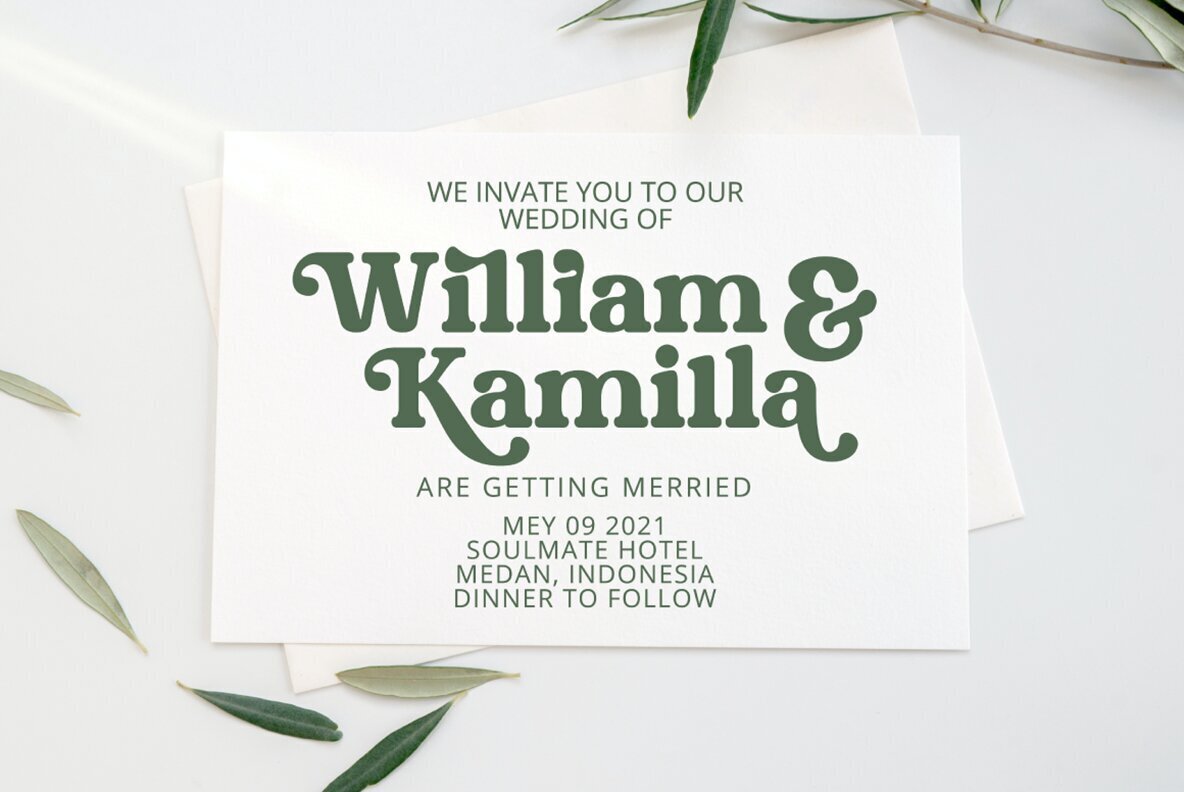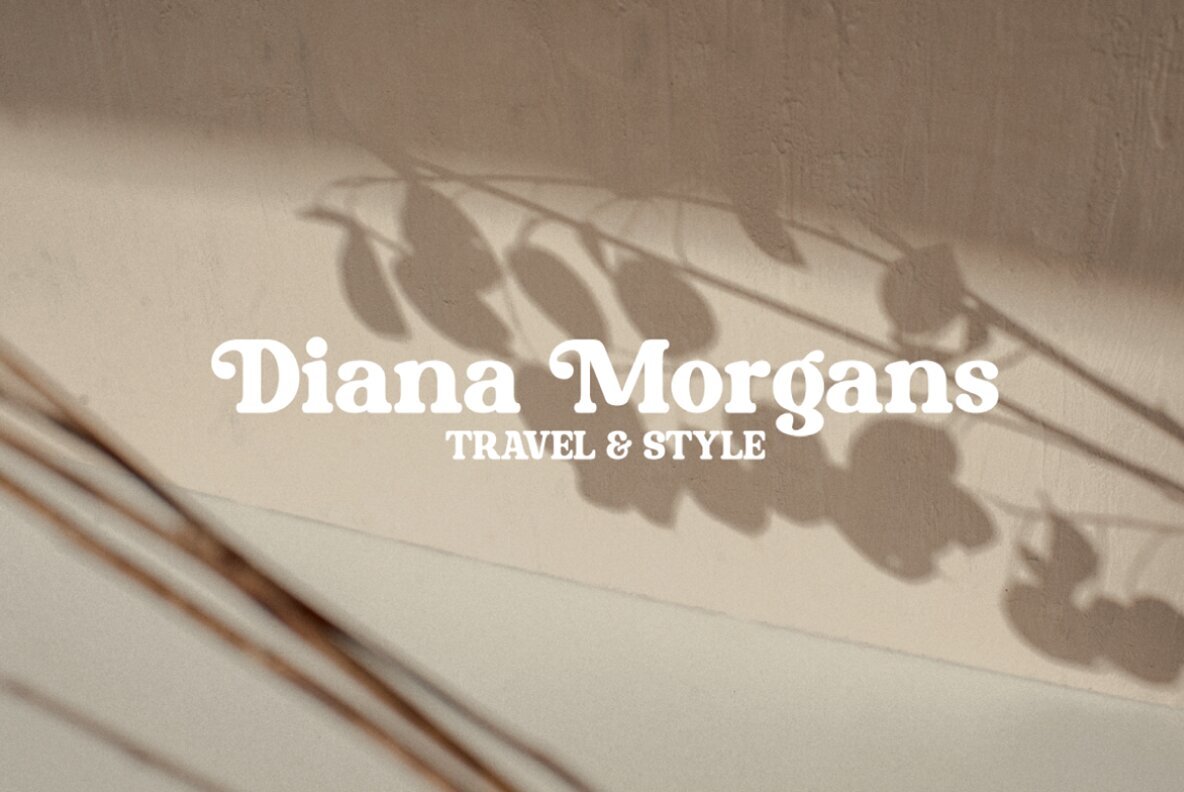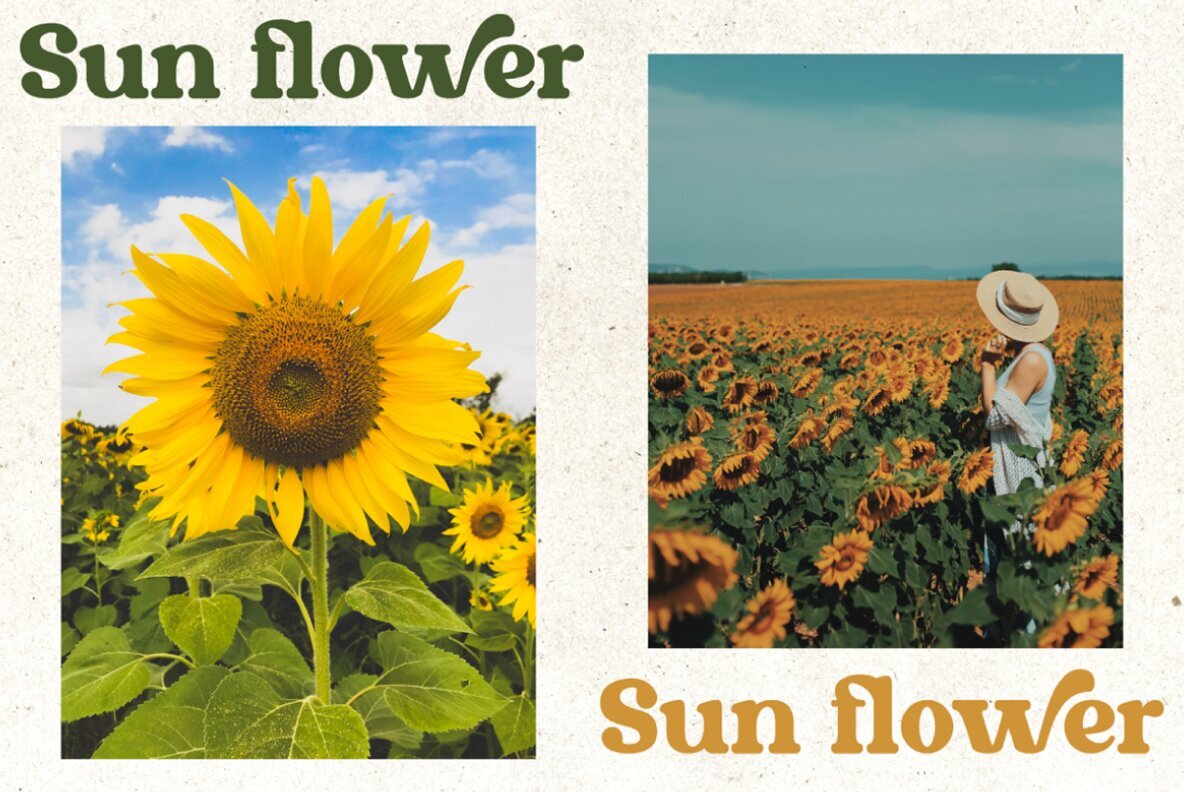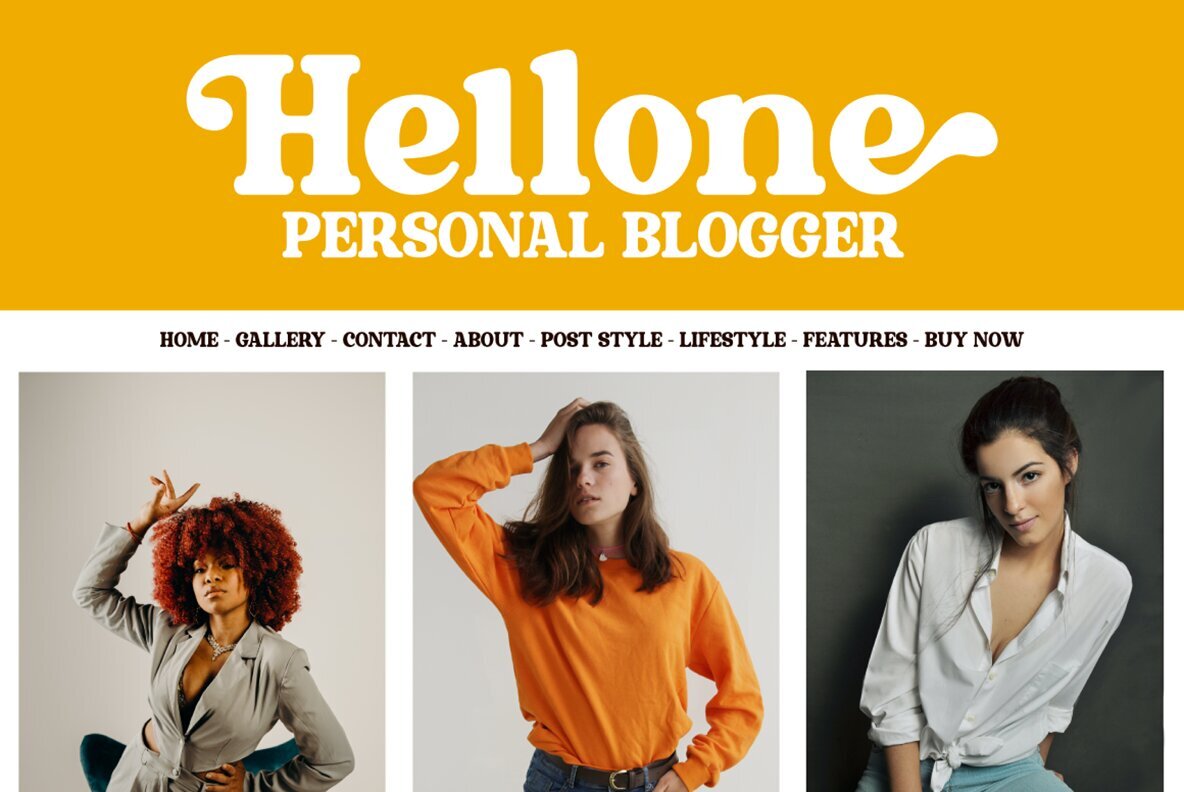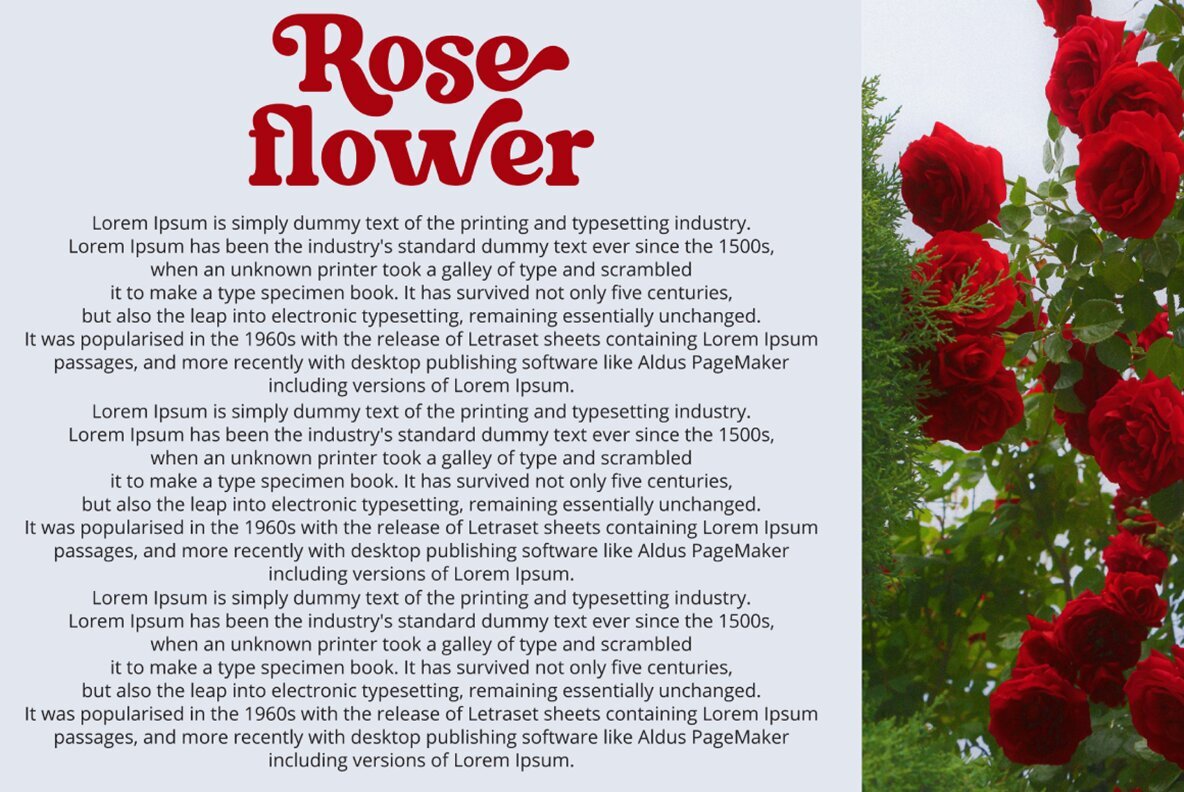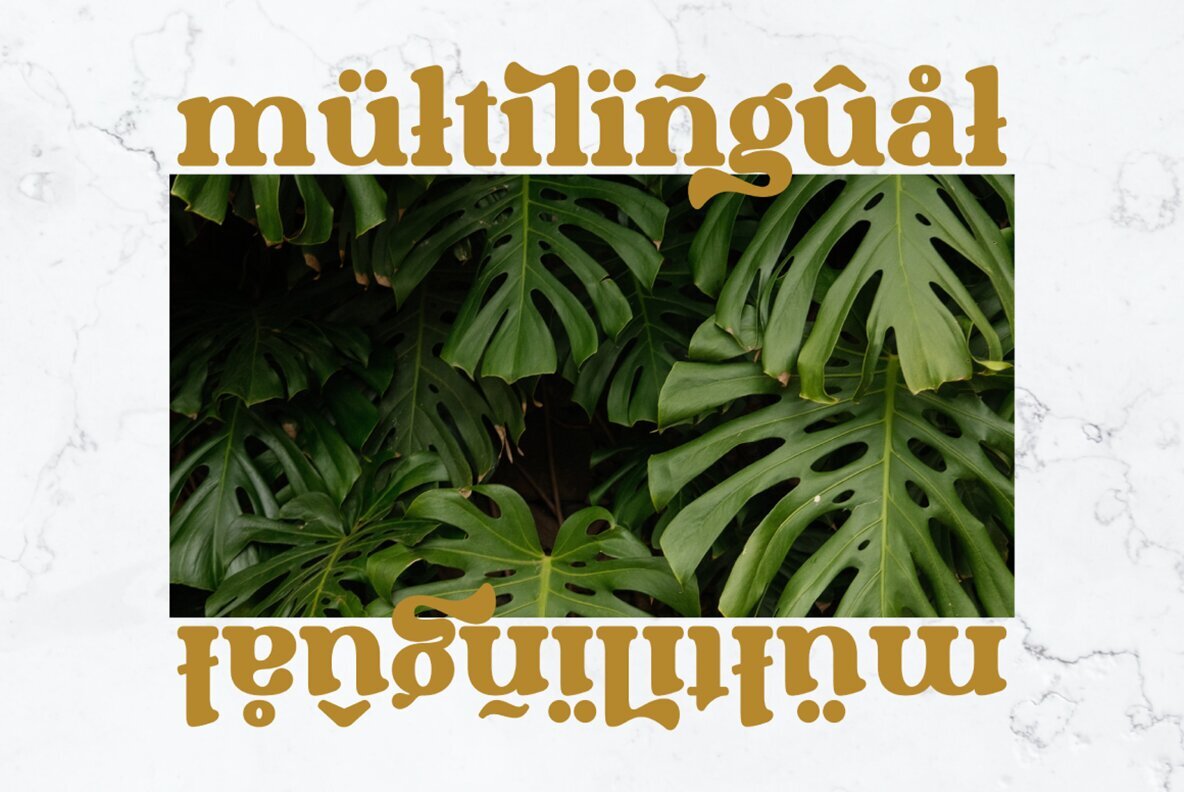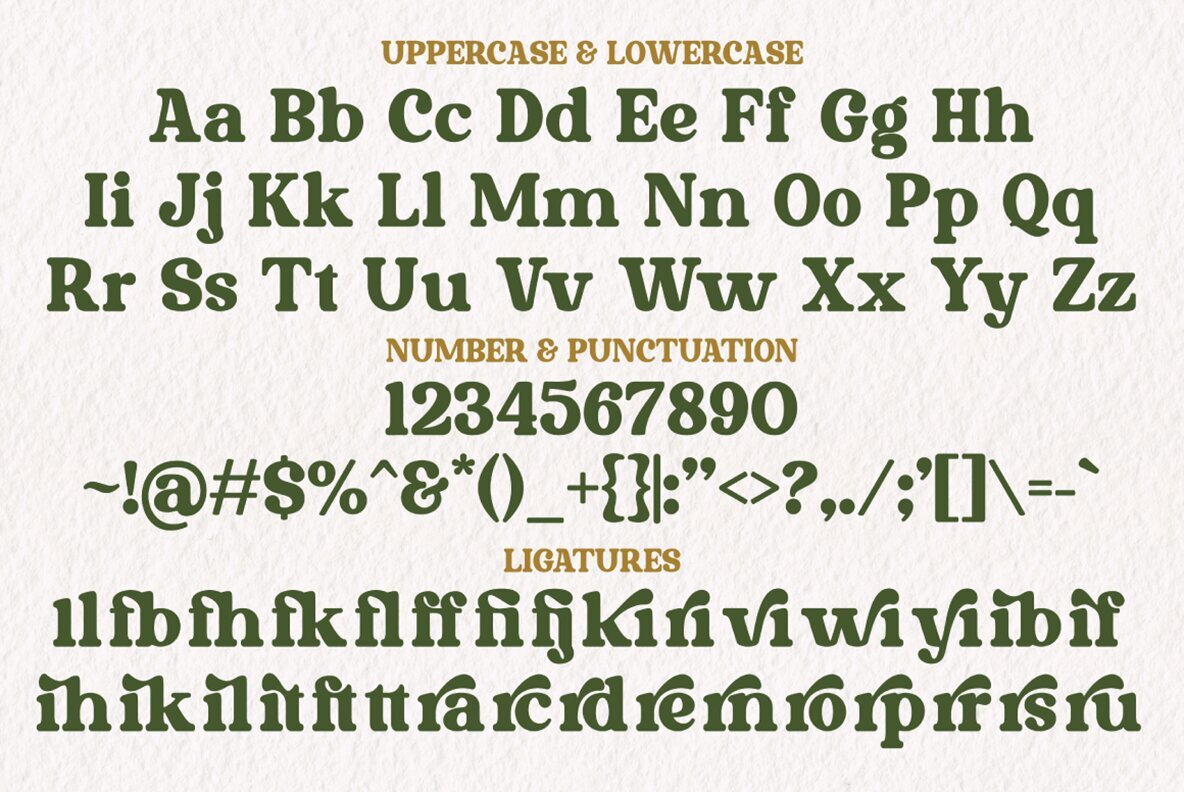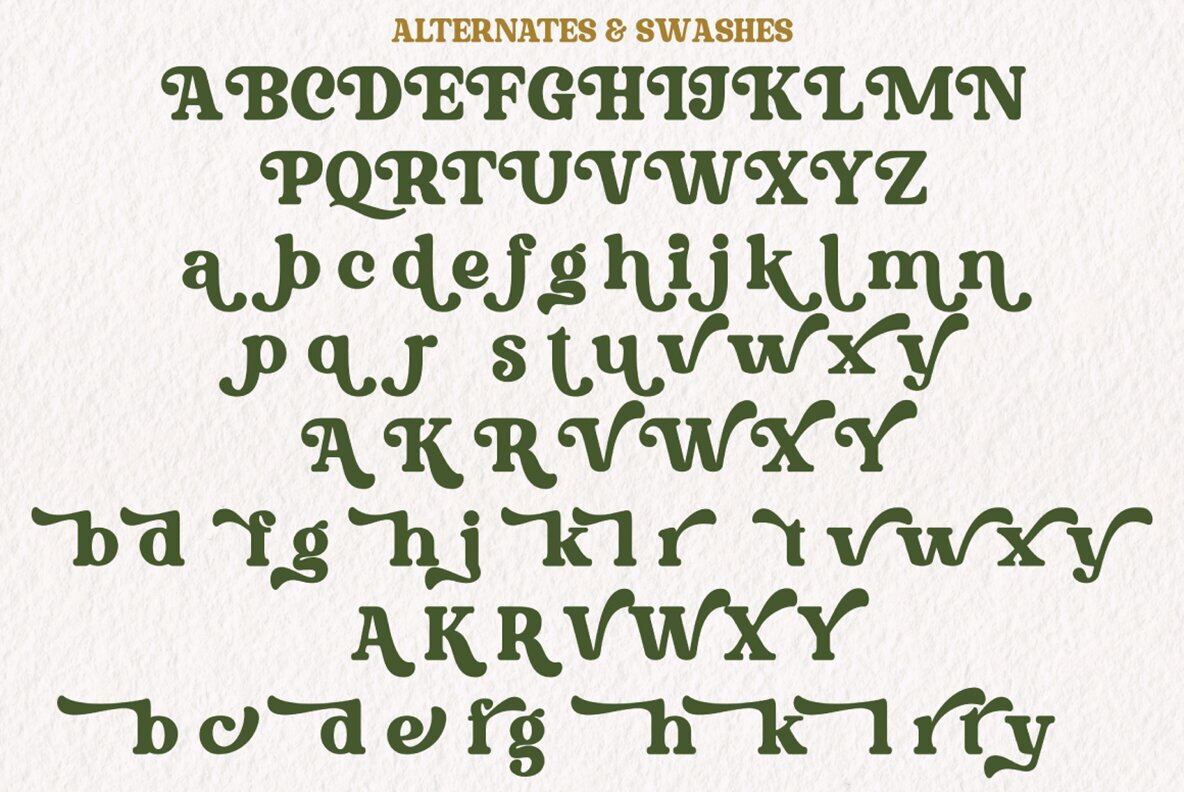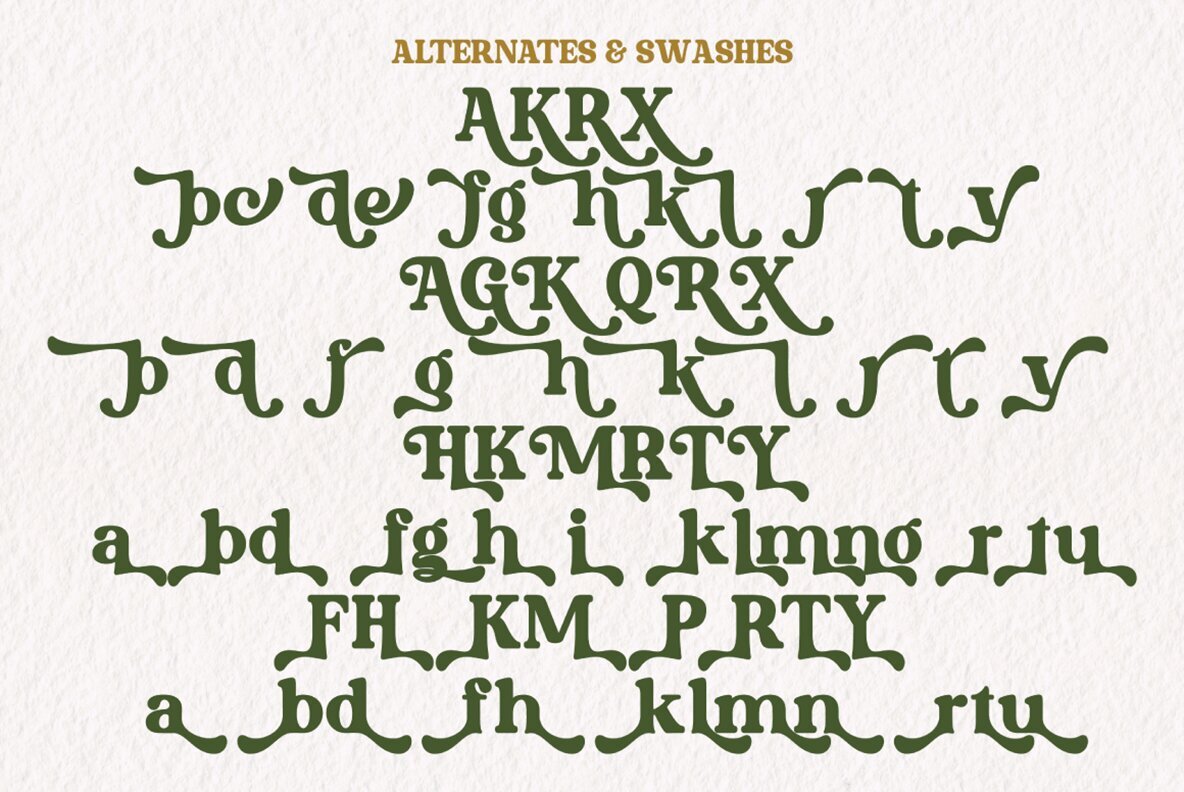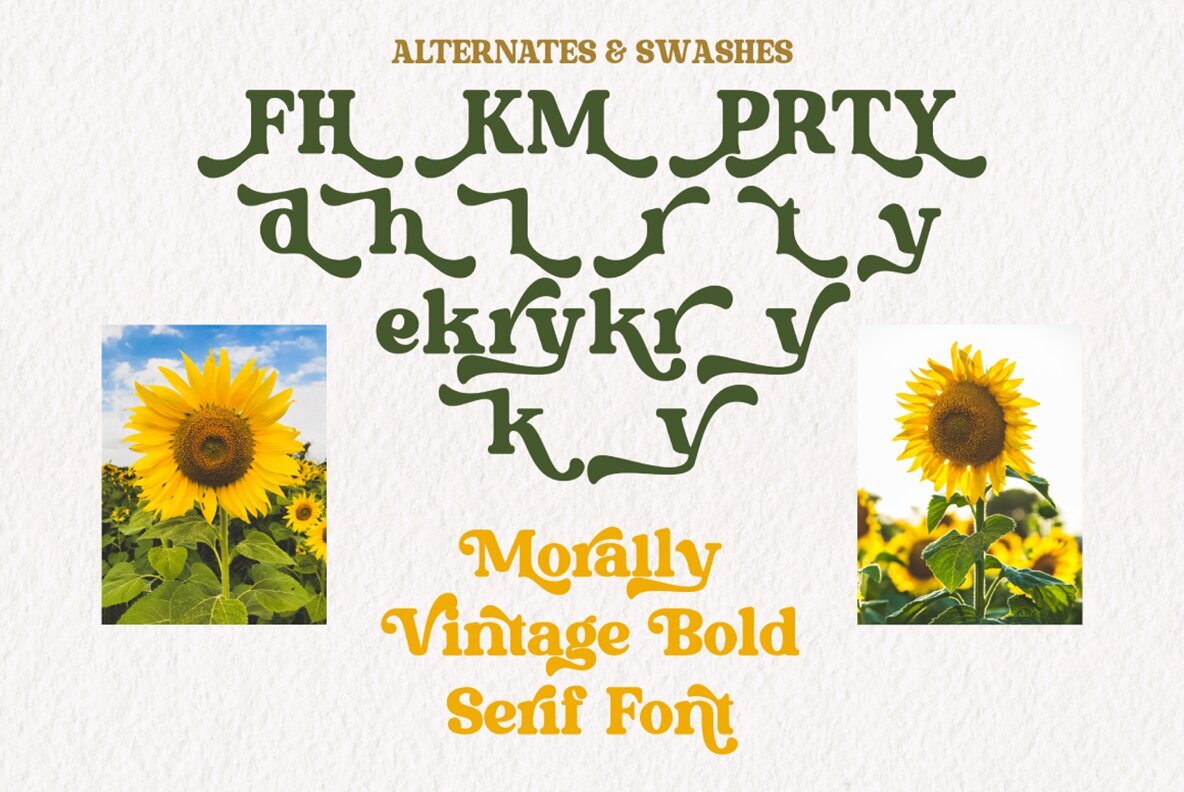
Morally Font
Morally Serif Regular
Morally is a stylish serif font that perfectly balances modern and retro aesthetics. Featuring alternatives and ligatures, it is ideal for creating stunning logos, quotes, social media posts, blog content, branding projects, magazine imagery, and wedding invitations. Morally Font is designed to be a valuable addition to your font collection, offering versatility and style. If you have any questions, feel free to reach out. Thank you, and happy creating!Morally: Modern Bold Serif Font